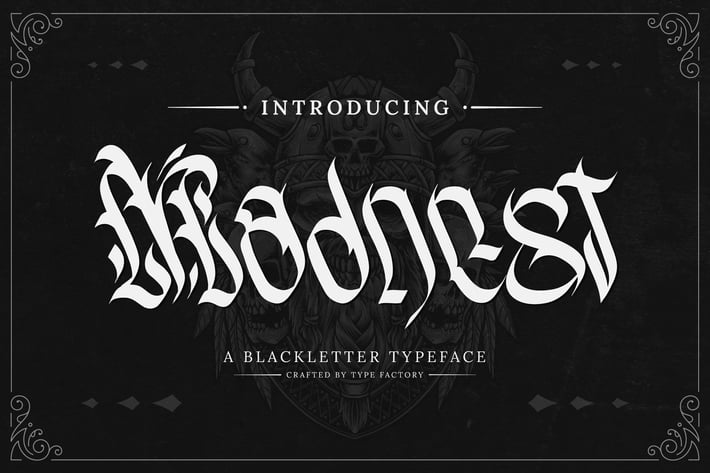
Madnest - Blackletter Typeface
Madnest is a bold and dramatic blackletter typeface that commands attention with its sharp, angular strokes and Gothic-inspired design. Perfect for album covers, posters, logos, and branding that require a strong, rebellious aesthetic, Madnest evokes a sense of power and tradition. Its dark and intricate letterforms make it ideal for creating designs with a historic, edgy, or medieval vibe. Whether you're aiming for a vintage or avant-garde look, Madnest delivers an impactful and intense visual statement.